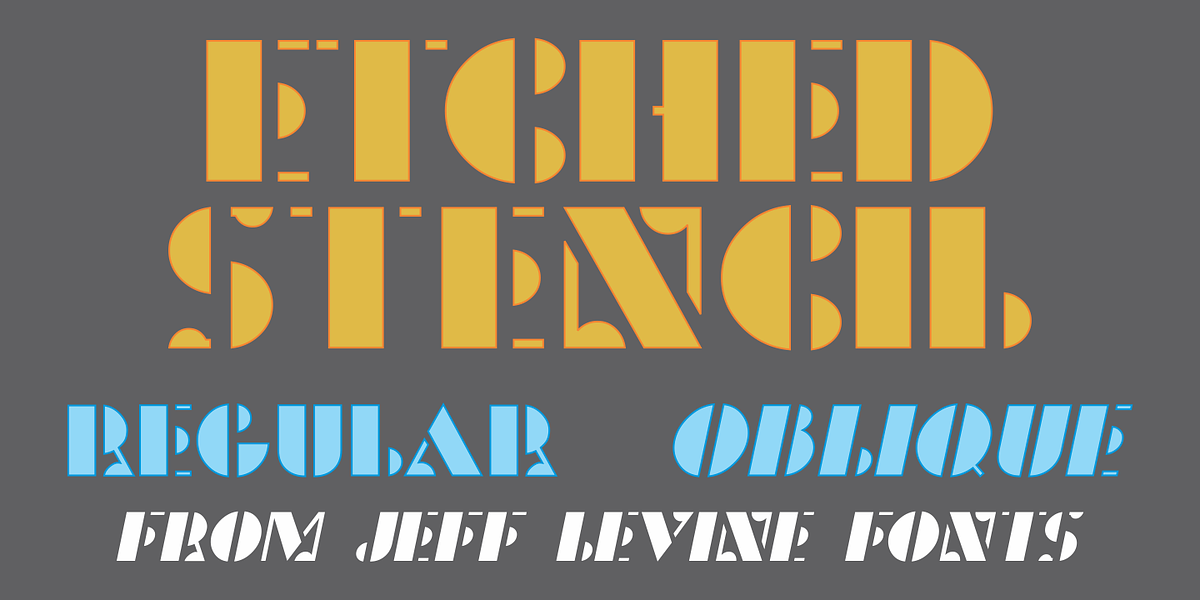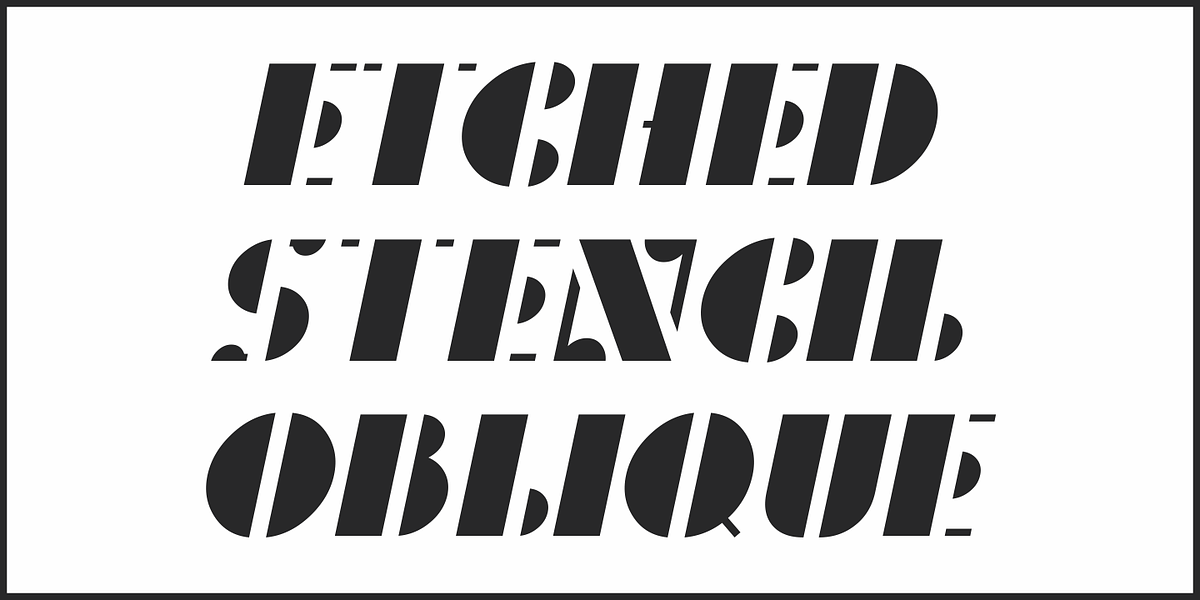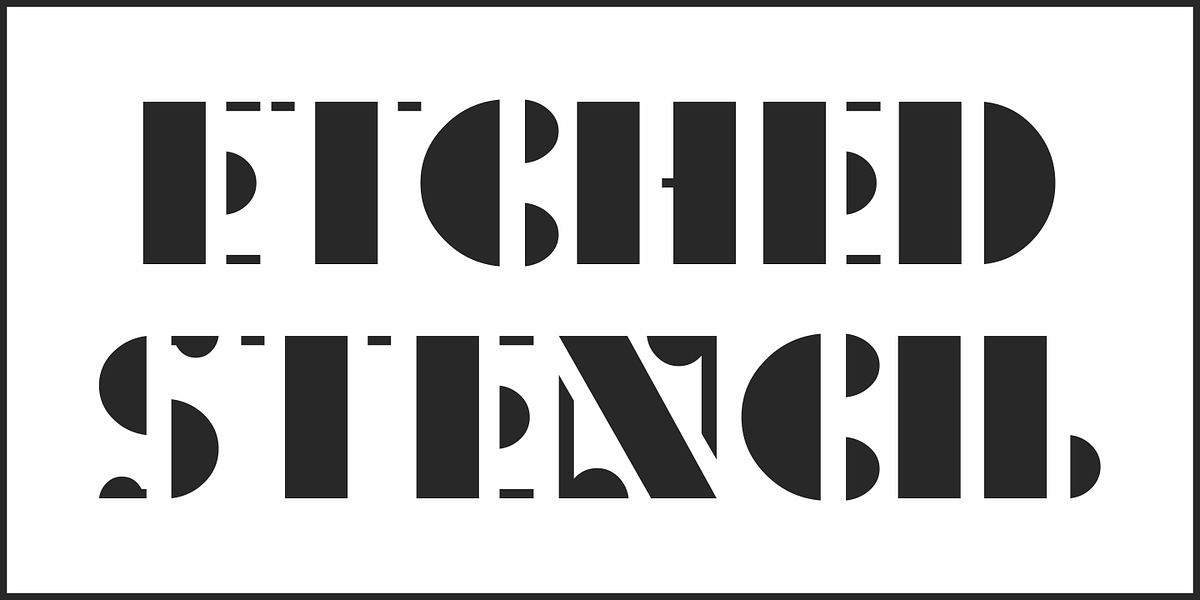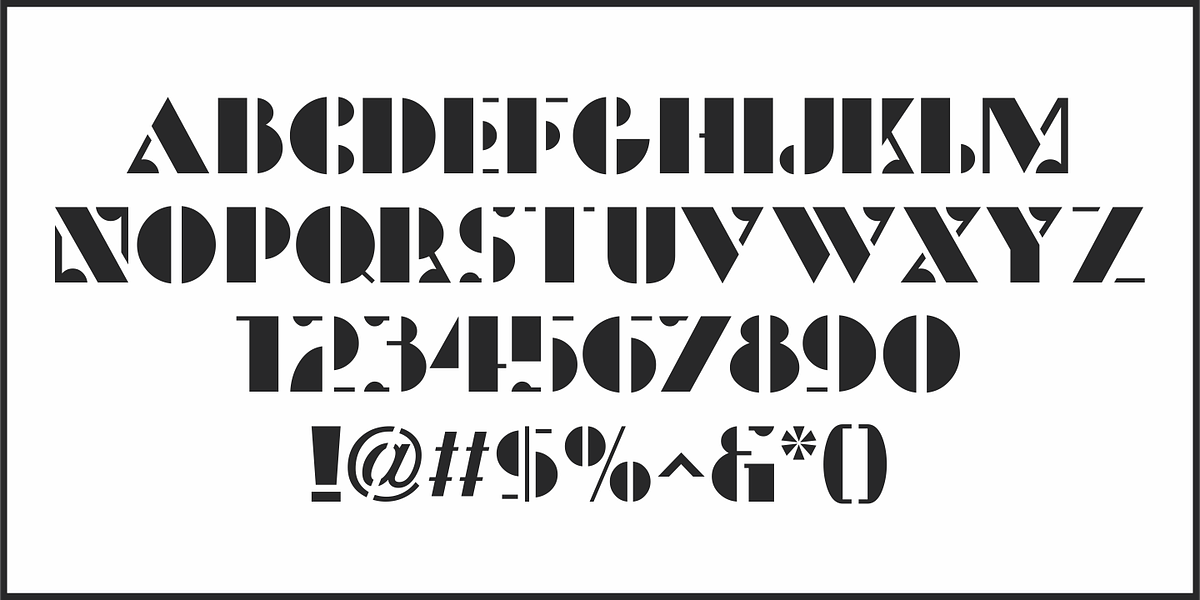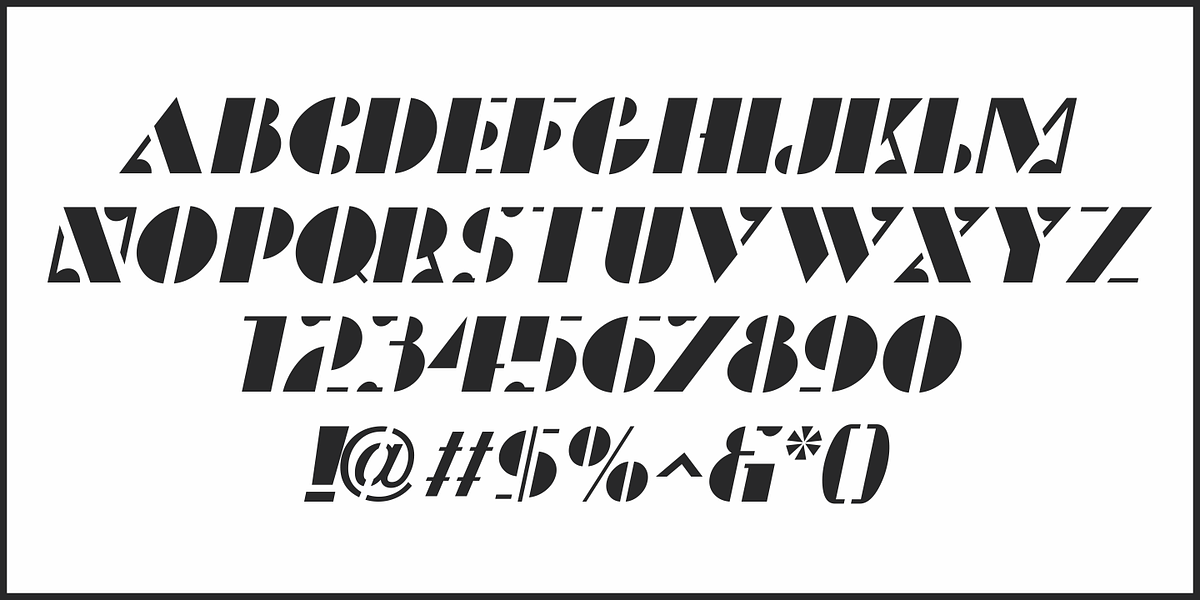
Etched Stencil JNL
The American Sign Museum in Cincinnati houses an amazing collection of vintage signage from all kinds of sources and covering many eras of retail advertising.
Someone visiting the museum posted online an image of one particular piece of glass with hand lettering saying “gold leaf” in a bold Art Deco stencil style.
Etched Stencil JNL was inspired by that image and is available in both regular and oblique versions.